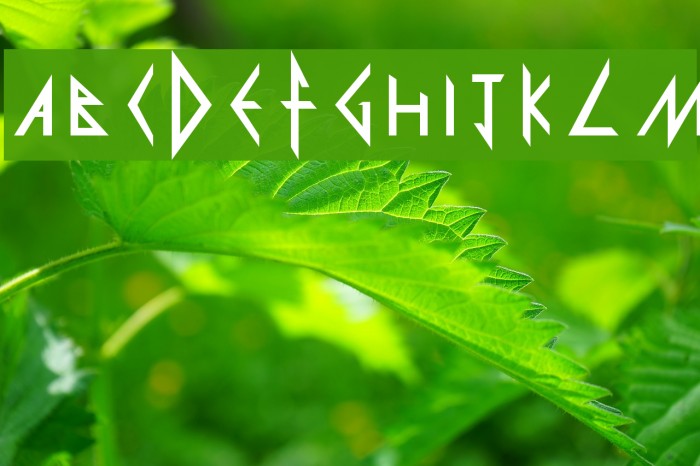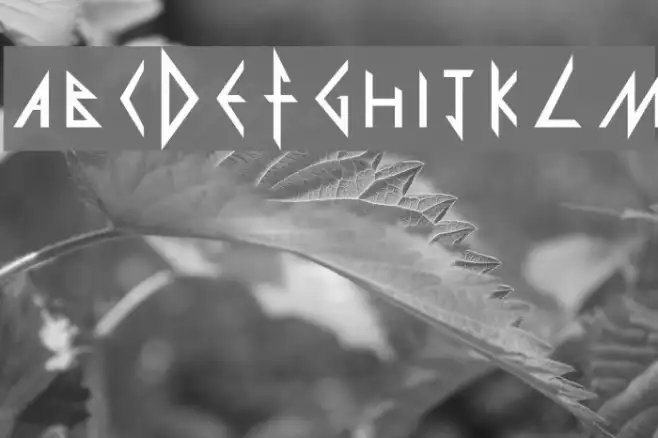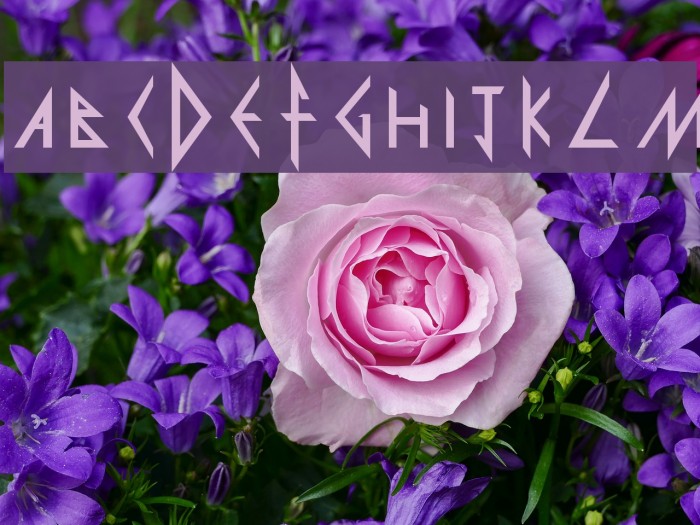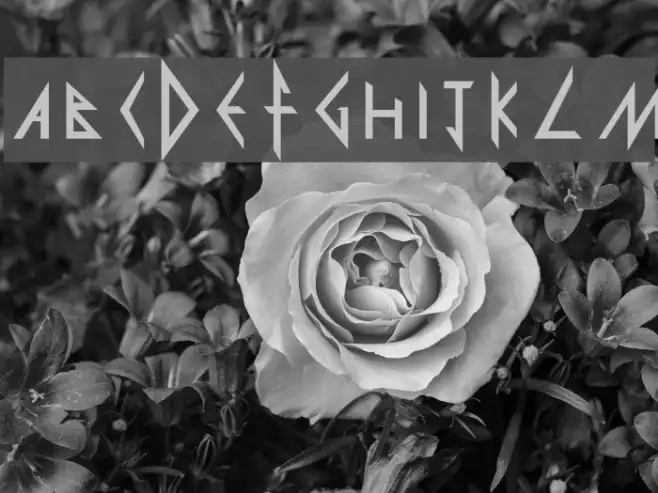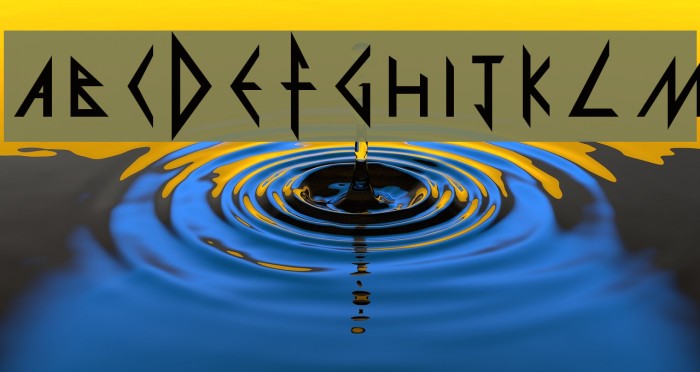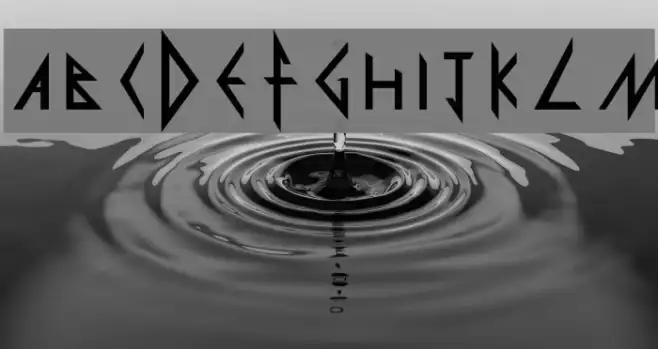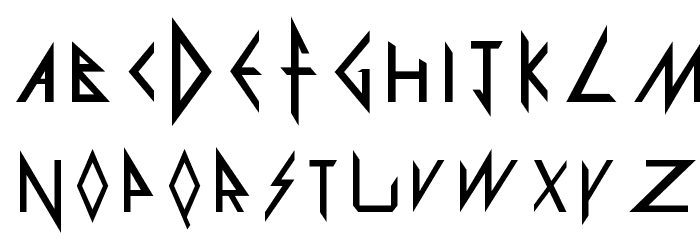
Def Leppard Font
Def Leppard Description
This font features a bold, angular design with sharp, pointed edges and a geometric aesthetic. The characters are crafted with a distinct, edgy style that evokes a sense of energy and dynamism. The uppercase and lowercase letters maintain a consistent angular theme, with some characters incorporating unique cuts and slashes that add to the overall aggressive look. The numbers follow the same design principles, ensuring uniformity across all characters. Special characters are also designed with the same sharp, geometric style, making this font ideal for projects that require a bold and striking visual impact.